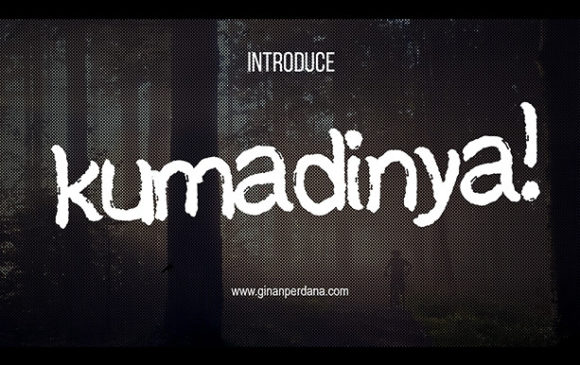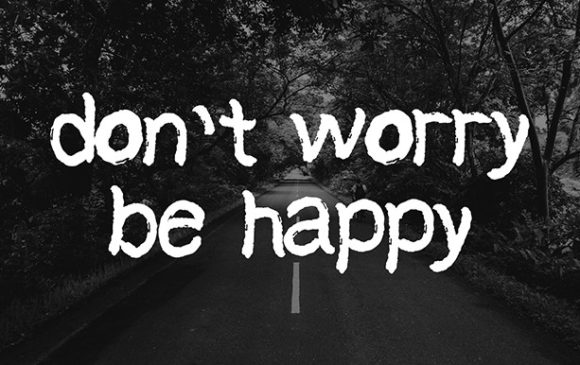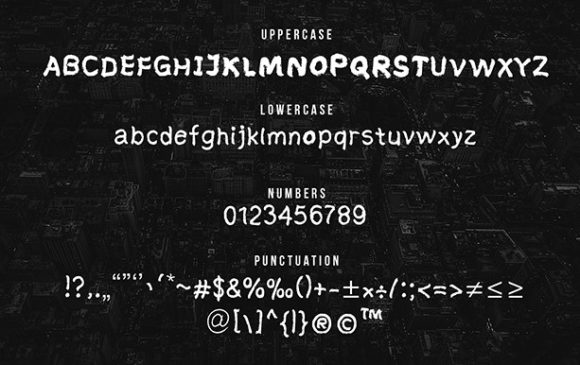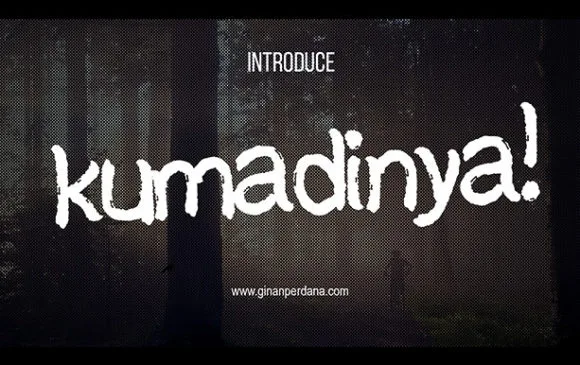
Personal Use Free Kumadinya 0 184 FacebookTwitterPinterestWhatsApp 1 of 3 About Kumadinya Font Kumadinya is a cool and quirky brushed display font. No matter the topic, this font will be an incredibly asset to your fonts’ library, as it has the potential to elevate any creation. DOWNLOAD NOW